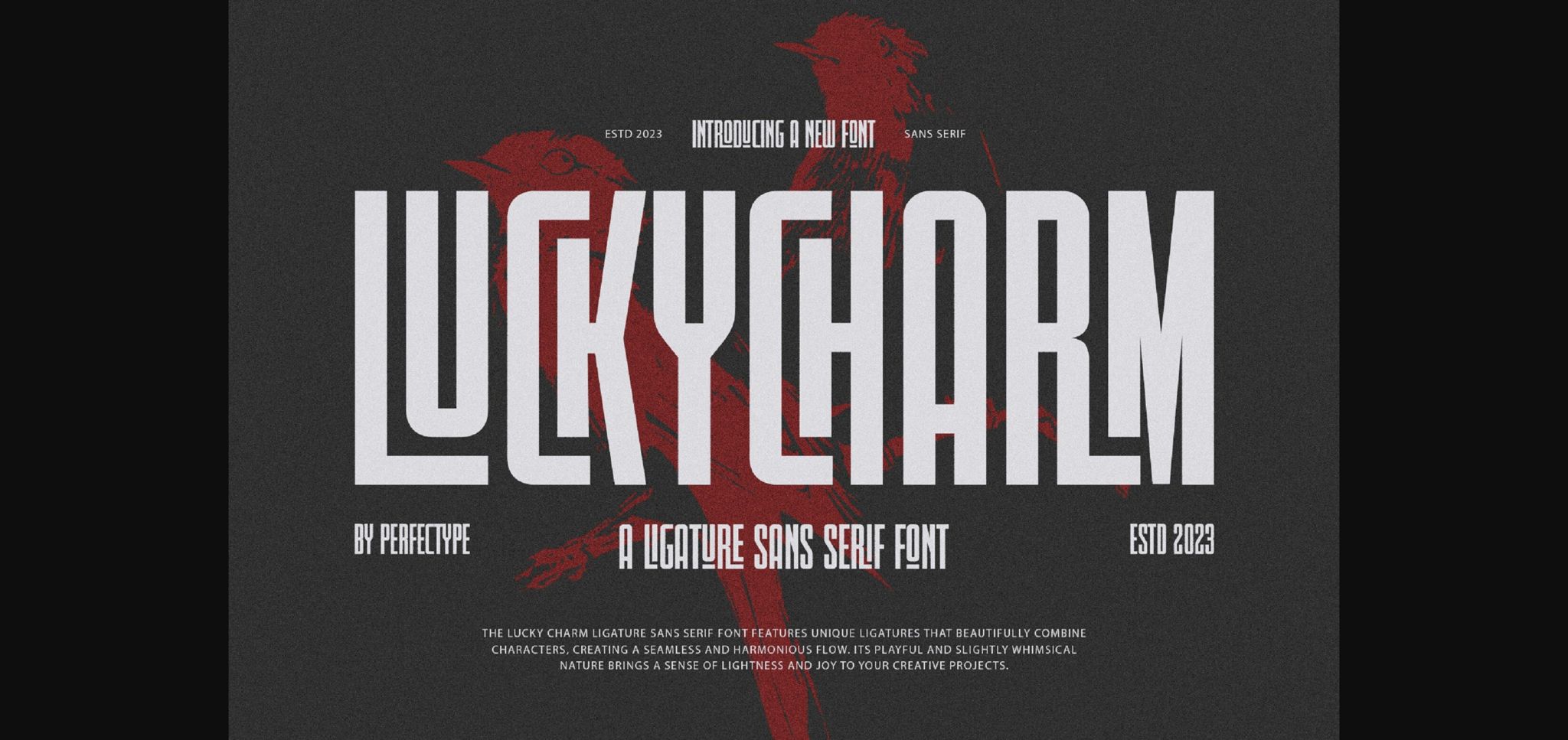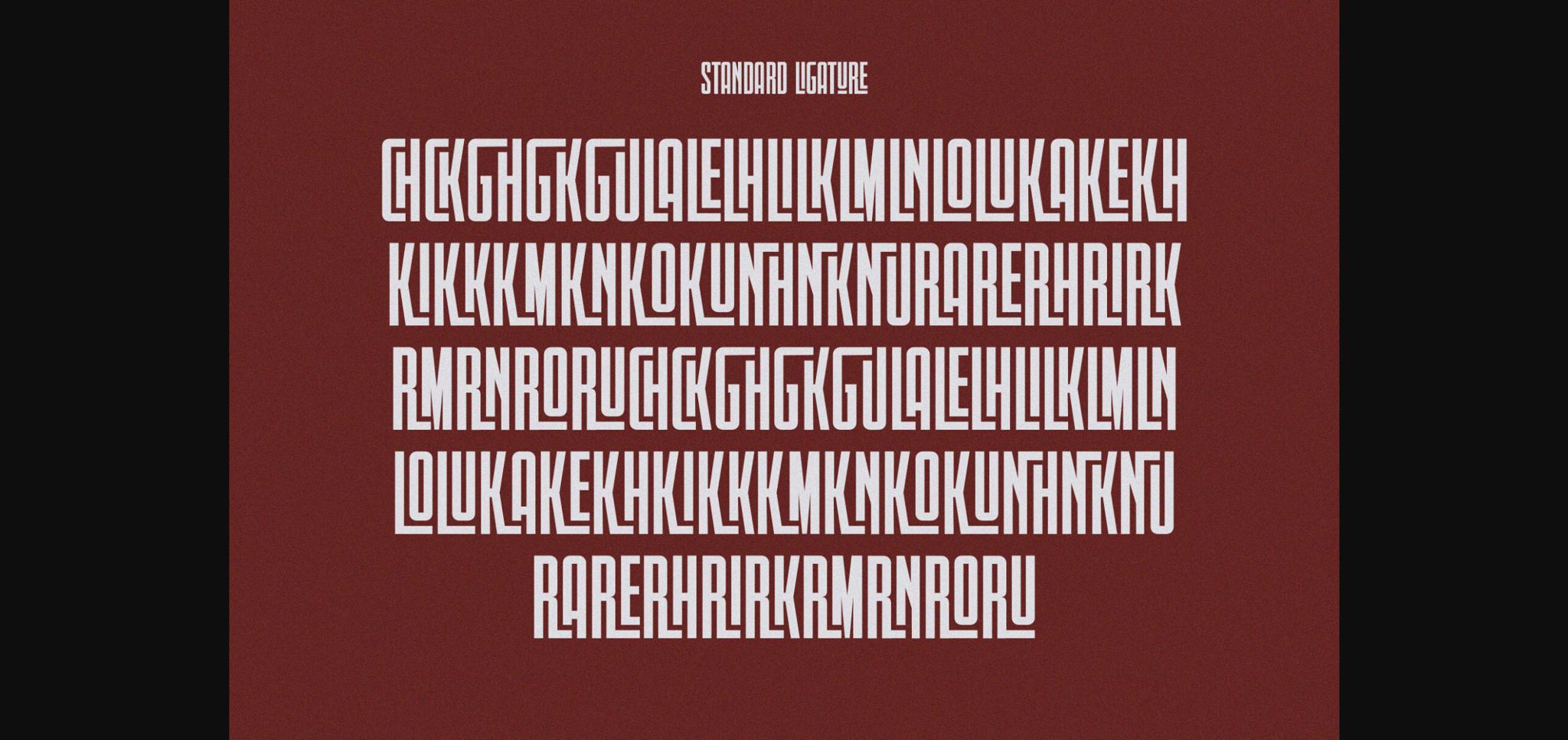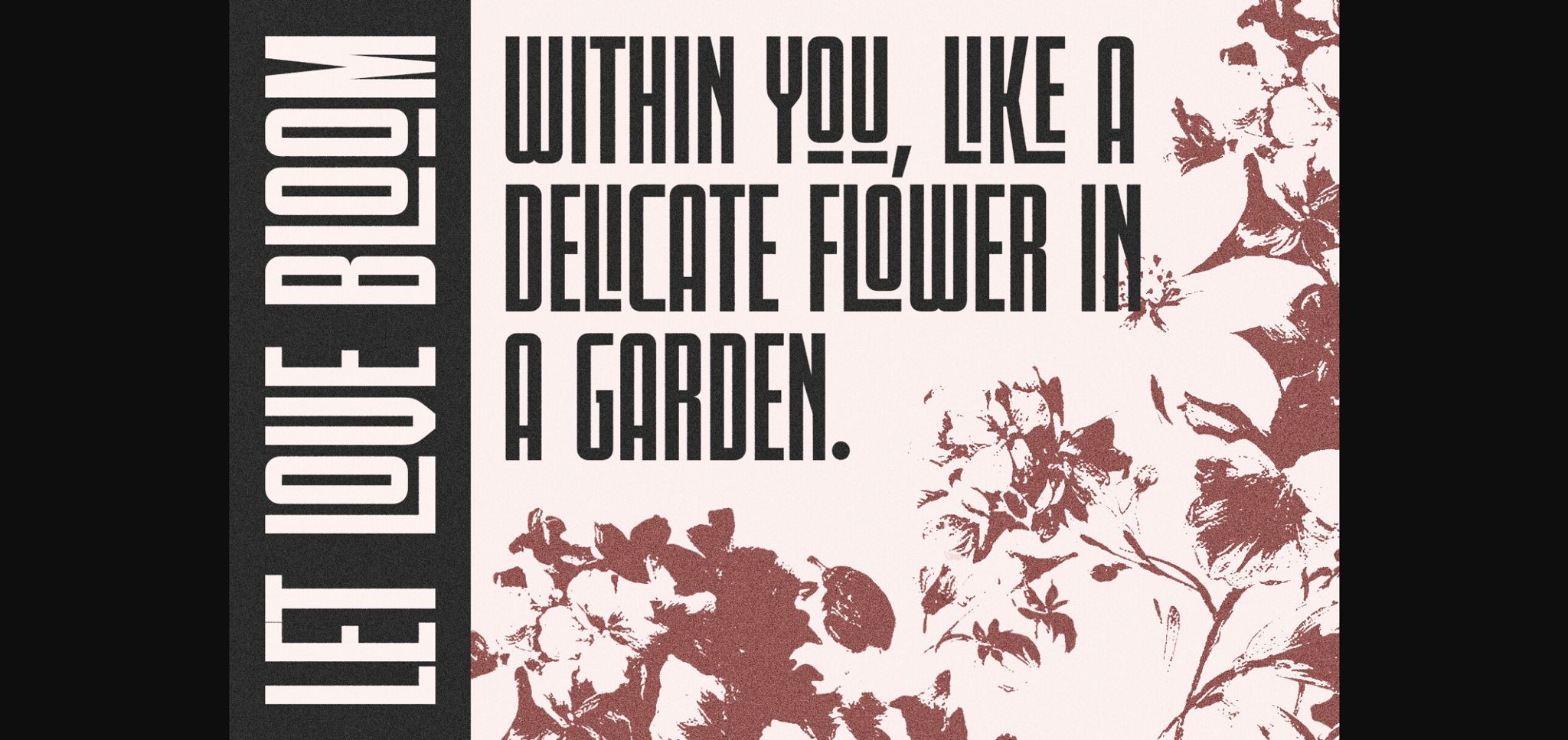
About Lucky Charm Font
Lucky Charm encapsulates a rhythm that is symmetrical and balanced due to a unique mix of different sources of inspiration. Proportions are precisely adjusted with subtle contours and subtle contrasts. These shapes give the font an attractive look without compromising on elegance and minimalism, ensuring that any glyph will work well in any graphic design purpose such as brochures, videos, advertising branding, logos, magazines, layout designs, posters, post templates, games and others.